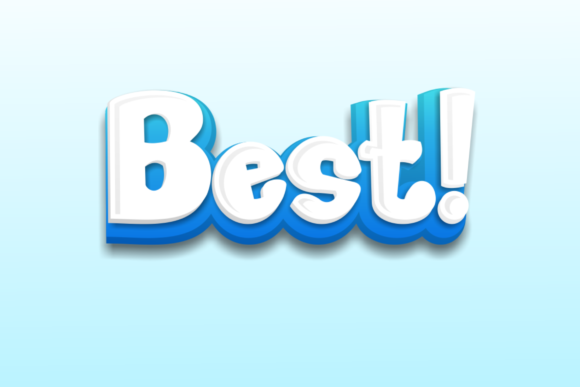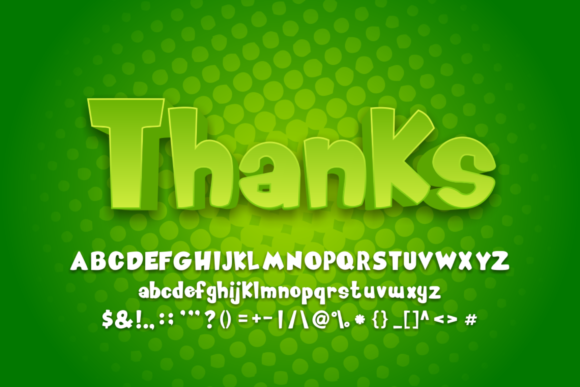
Copers Font: The Fun and Thick Lettered Display Font for Your Creative Projects
Are you looking for a font that can add a touch of fun and playfulness to your designs? Look no further than Copers Font! This thick lettered display font is perfect for delivering any message with confidence, authenticity, and charm. In this article, we’ll take a closer look at Copers Font and explore its features, uses, and benefits for designers and crafters.
What is Copers Font?
Copers Font is a fun and thick lettered display font that is designed to add a jolly touch to any project. Its bold and chunky letters make it perfect for headlines, titles, and short messages. The font is highly legible, even at small sizes, making it versatile for use in a variety of applications.
Key Features of Copers Font
- Fun and Playful Design: Copers Font has a unique and playful design that is sure to grab attention. Its thick letters and rounded edges give it a friendly and approachable feel.
- Highly Legible: The font is designed to be highly legible, even at small sizes. This makes it perfect for use in a variety of applications, from cartoons and games to magazine covers and posters.
- Versatile: Copers Font is a versatile font that can be used in a wide range of projects, from digital designs to print materials.
Uses of Copers Font
Copers Font is a versatile font that can be used in a wide range of projects. Here are some ideas to get you started:
- Cartoons and Animations: Copers Font is perfect for use in cartoons and animations. Its playful design and bold letters make it ideal for character names, dialogue bubbles, and titles.
- Magazine Covers: The font is great for use in magazine covers, adding a touch of fun and playfulness to your design.
- Games: Copers Font can be used in games to add a fun and playful touch to your game’s UI, titles, and messaging.
- Posters and Flyers: The font is perfect for use in posters and flyers, adding a bold and eye-catching touch to your design.
- Social Media Graphics: Copers Font can be used to create engaging social media graphics, such as Facebook posts, Instagram stories, and Twitter headers.
Benefits of Using Copers Font
There are many benefits to using Copers Font in your designs. Here are a few:
- Adds a Touch of Fun and Playfulness: Copers Font adds a touch of fun and playfulness to your designs, making them more engaging and attention-grabbing.
- Increases Legibility: The font’s bold and chunky letters make it highly legible, even at small sizes.
- Versatile: Copers Font can be used in a wide range of projects, from digital designs to print materials.
Tips for Using Copers Font
Here are a few tips for using Copers Font in your designs:
- Use it for Headlines and Titles: Copers Font is perfect for use in headlines and titles. Its bold and chunky letters make it highly legible and attention-grabbing.
- Experiment with Colors: The font looks great in a variety of colors. Experiment with different colors to find the one that works best for your design.
- Pair it with Other Fonts: Copers Font can be paired with other fonts to create a unique and interesting design.
Copers Font is a fun and thick lettered display font that is perfect for adding a touch of playfulness to your designs. Its bold and chunky letters make it highly legible, even at small sizes. The font is versatile and can be used in a wide range of projects, from digital designs to print materials. With its ease of use and flexibility, Copers Font is a great addition to any designer’s toolkit.